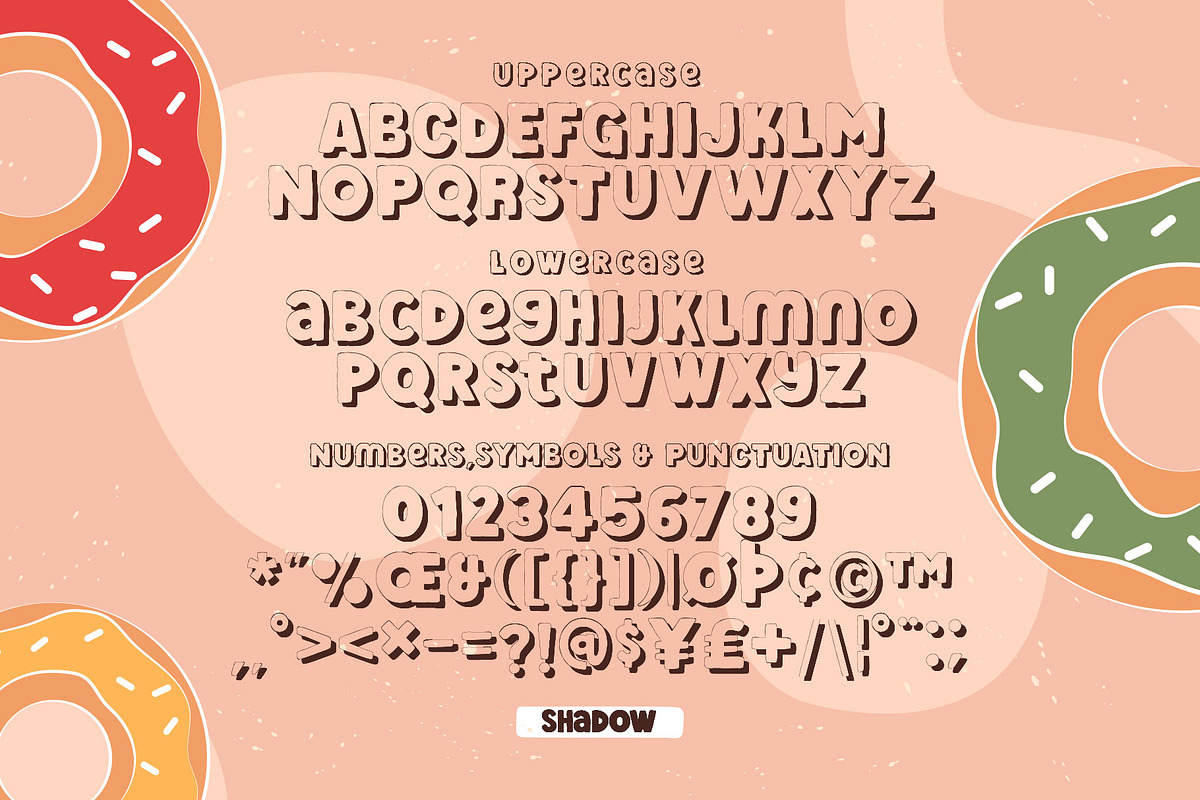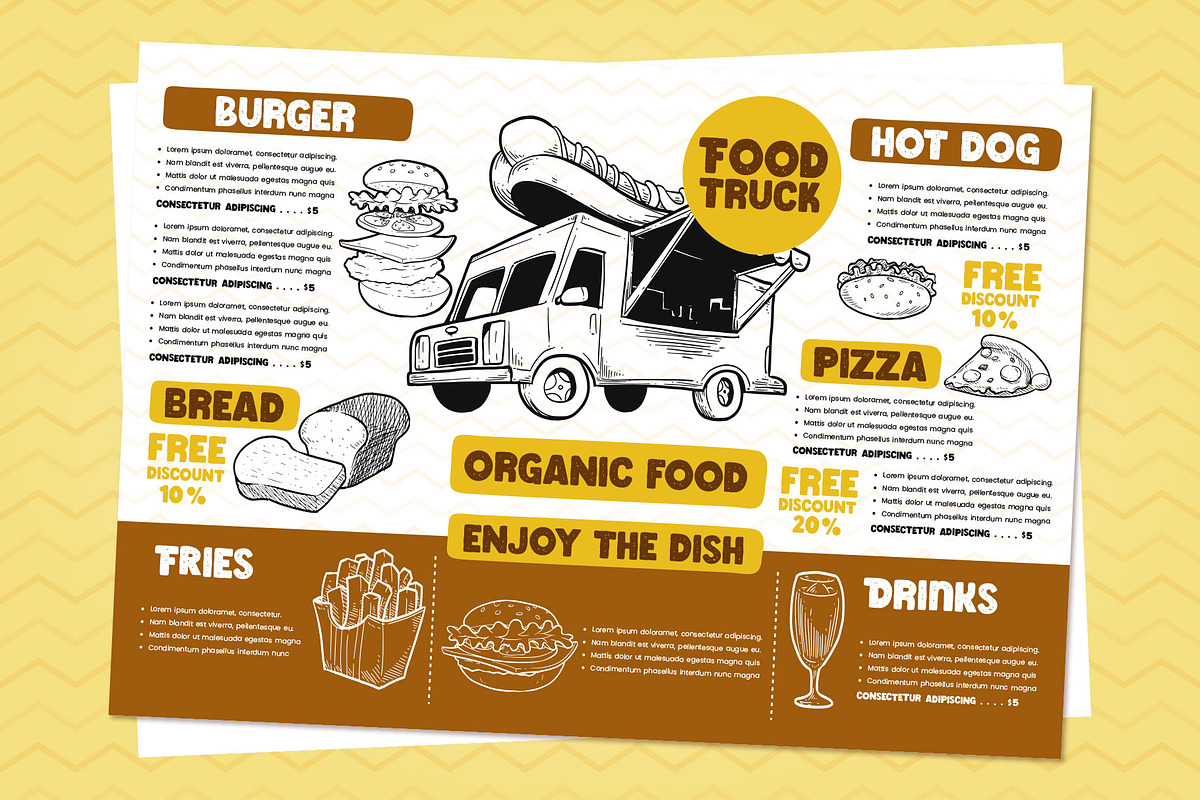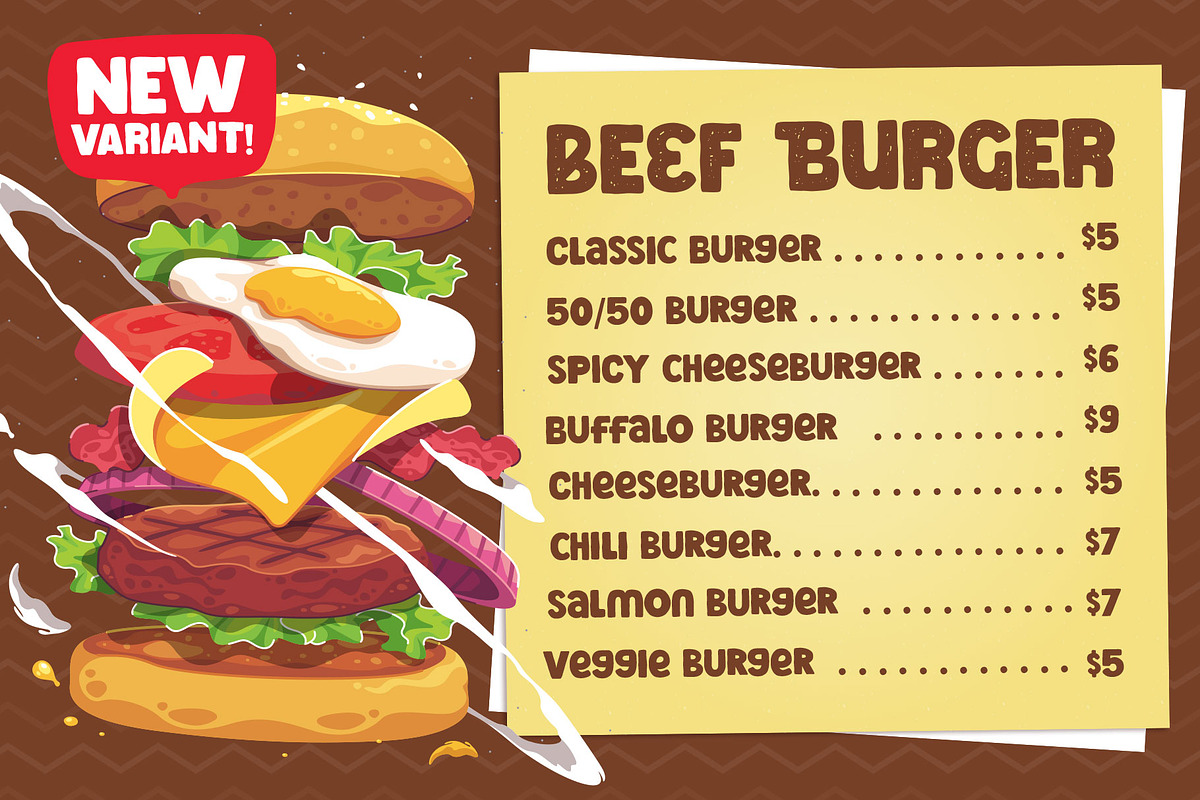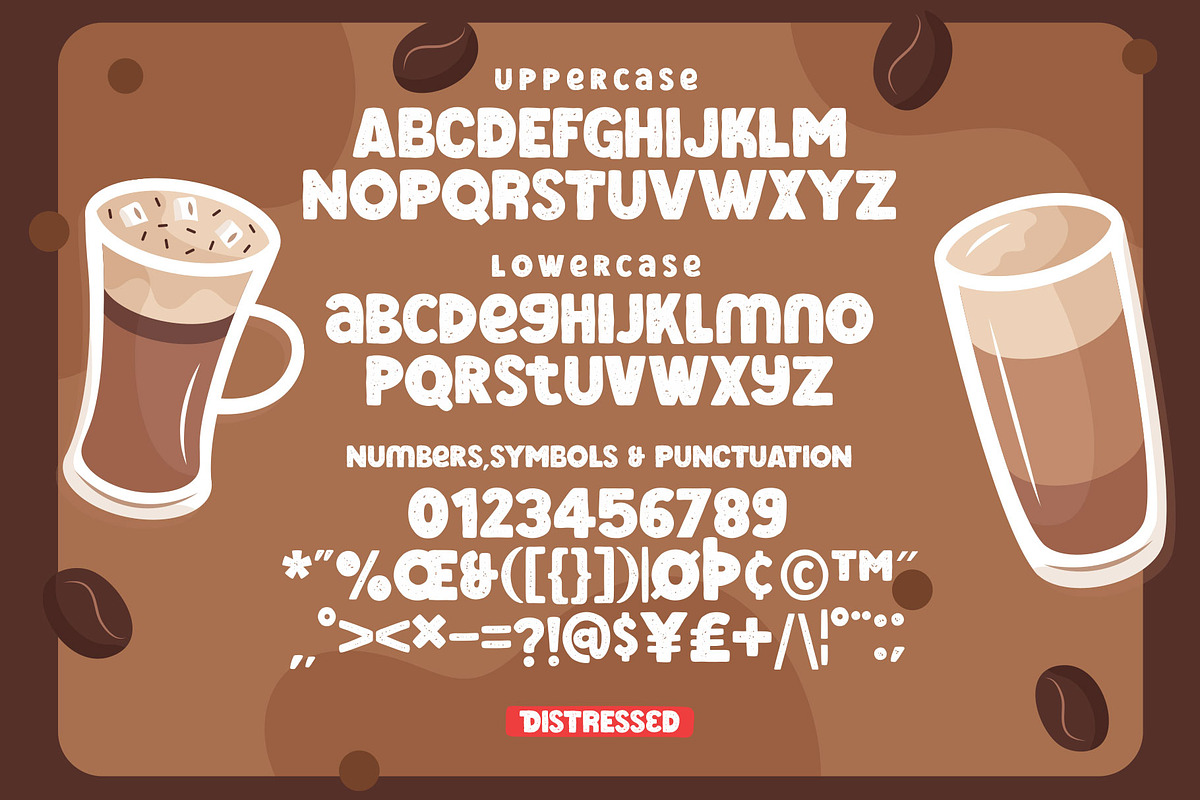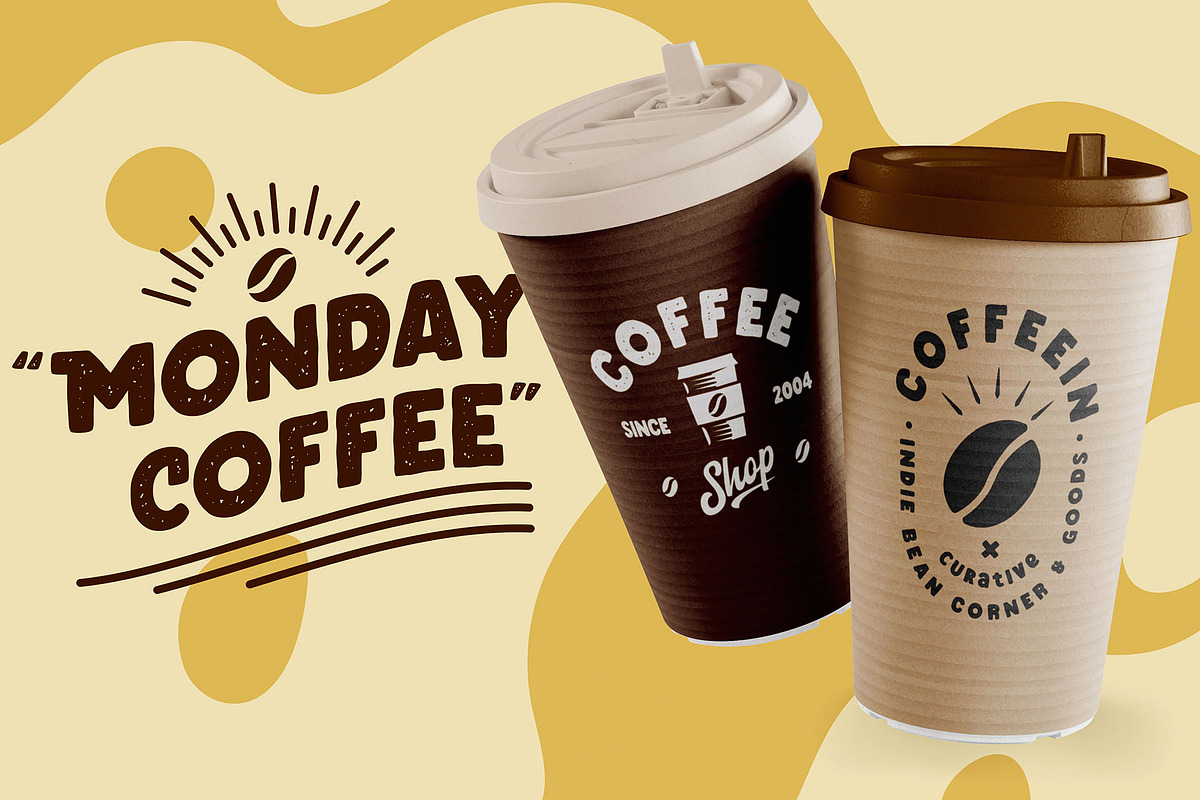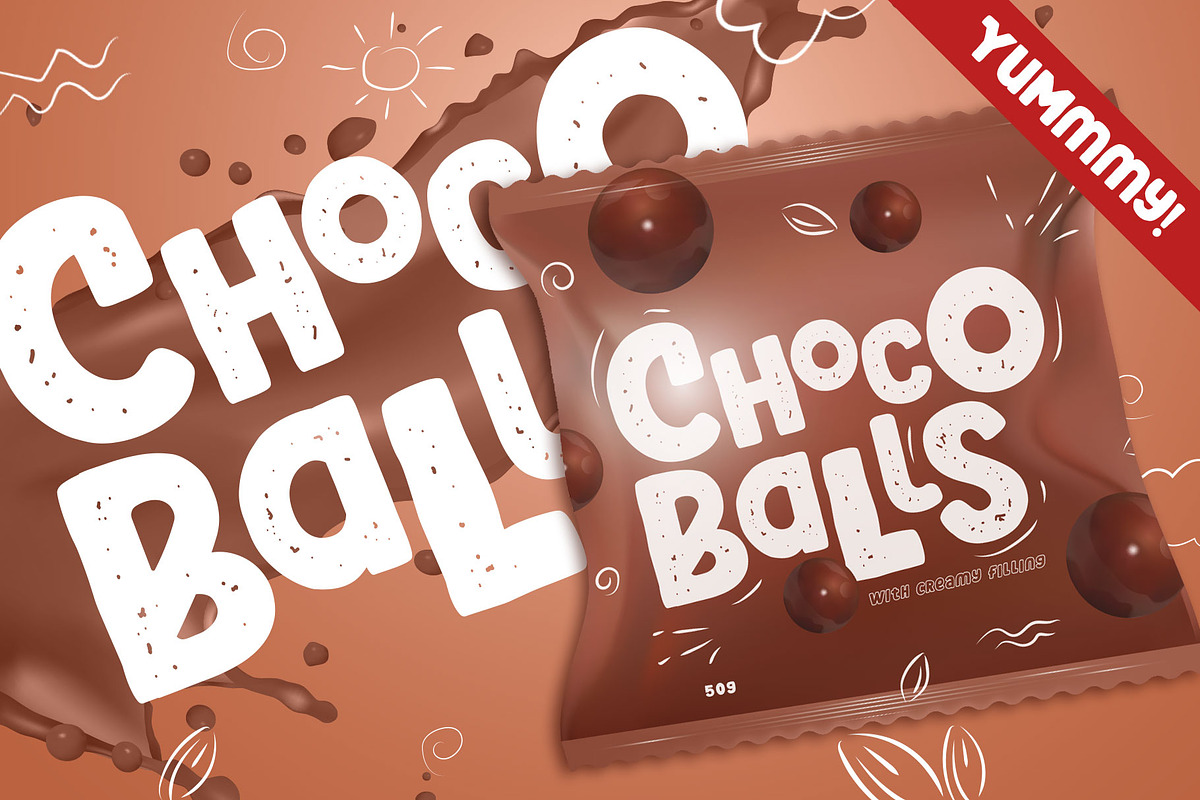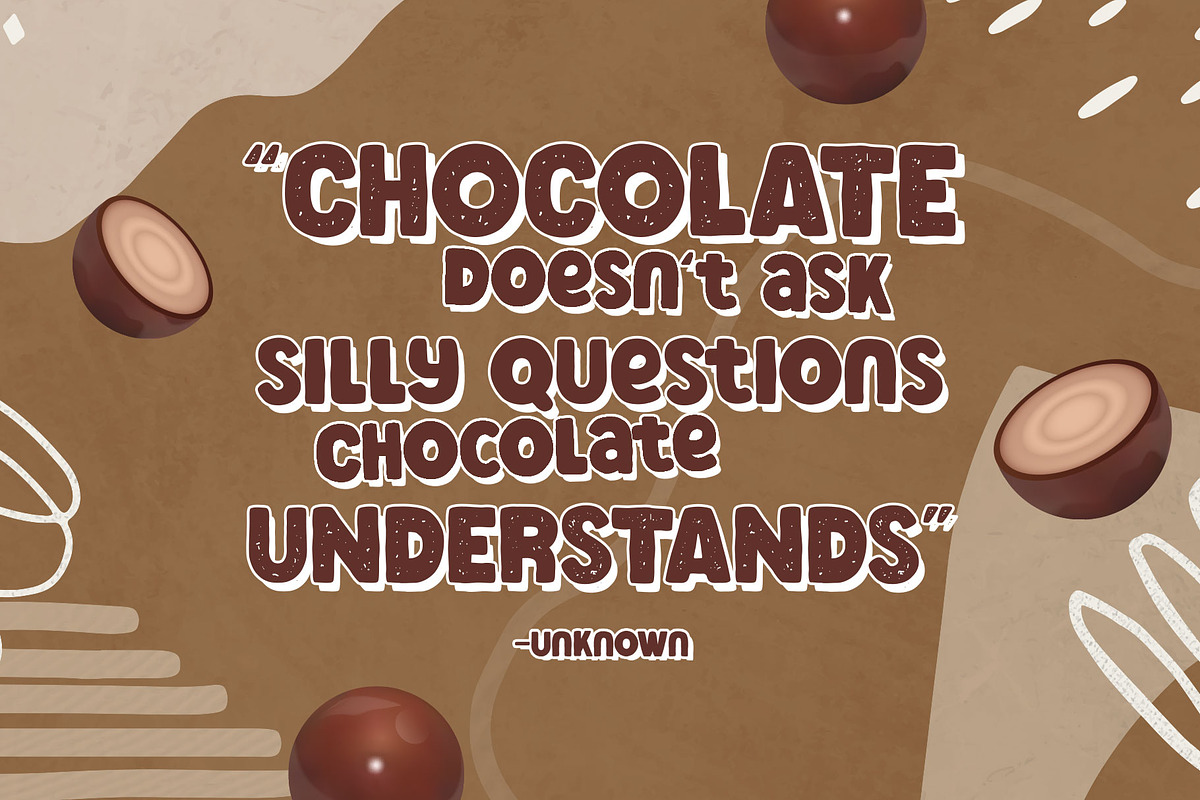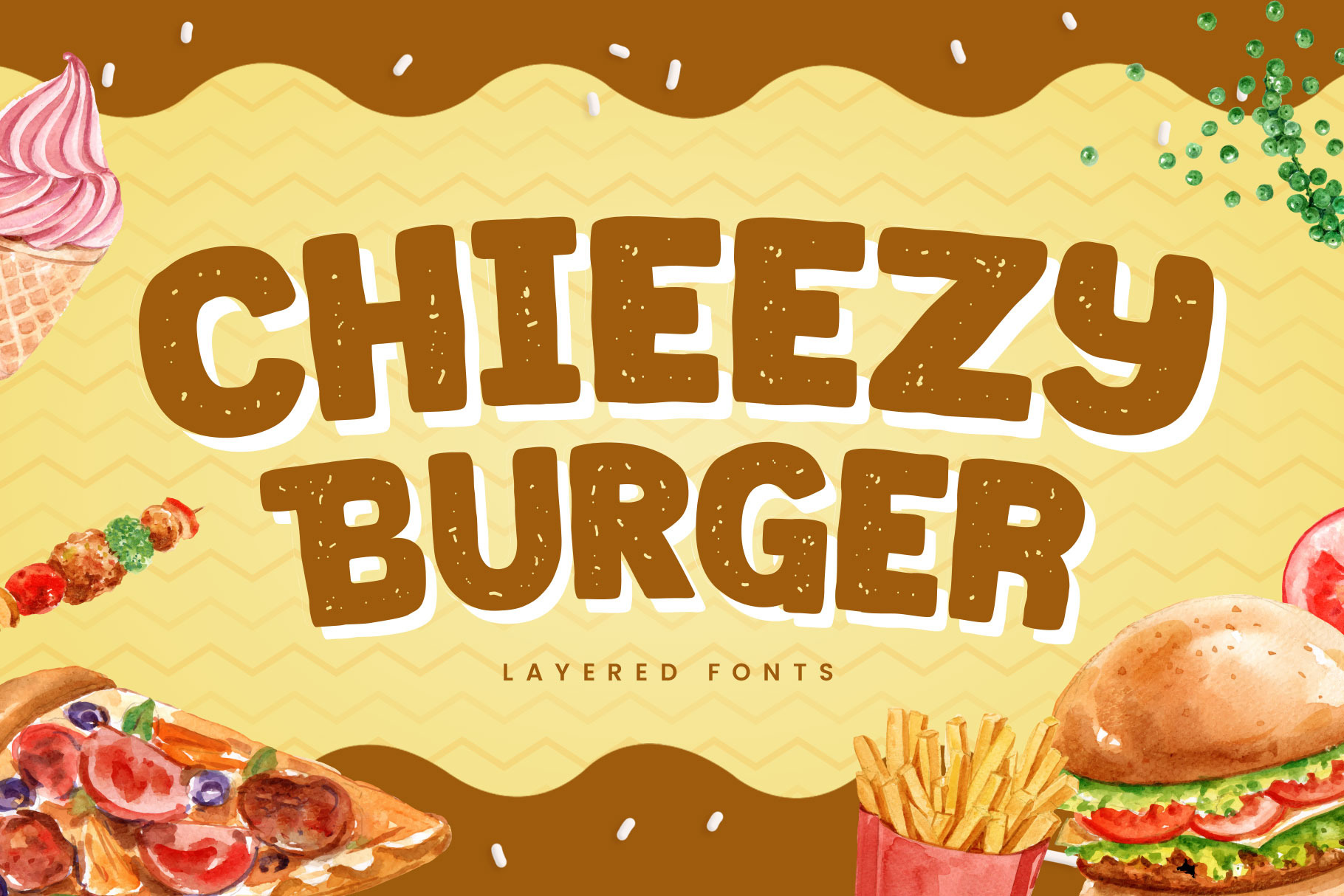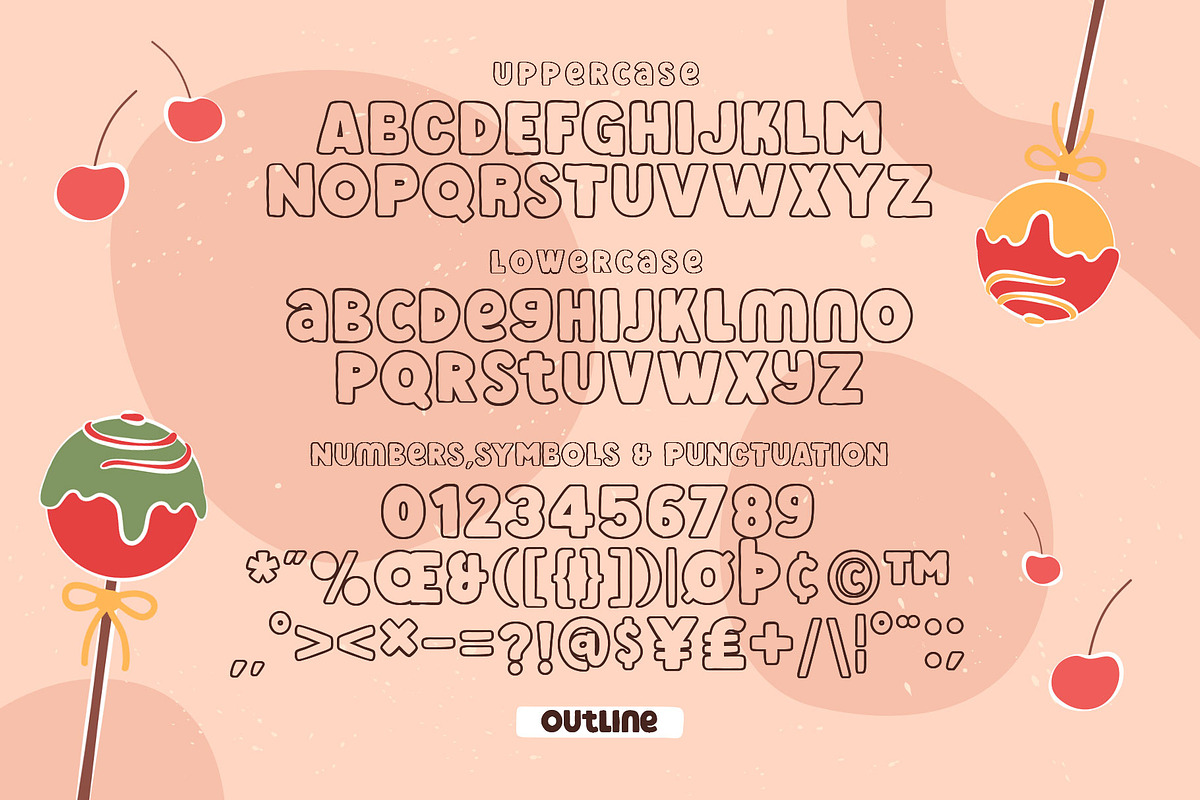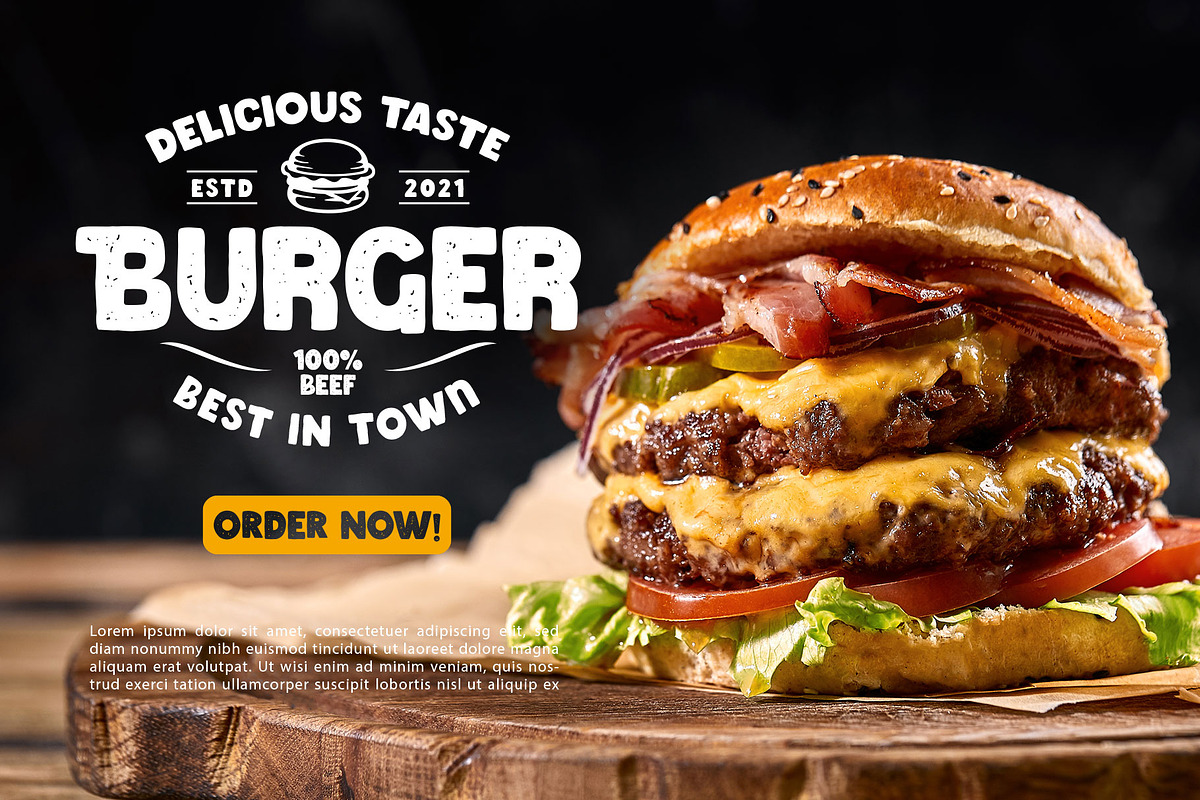
Chieezy Burger - Layered Font
Say hello to Chieezy Burger! Yes, this font is tasty, created especially for food branding and food advertising. Inspired by visualization of tasty burgers, crunchy chips, and cheerful emotion of the people who enjoy foods, drawn become the playful alphabet, with natural strokes.
Chieezy Burger is available in 4 styles: Regular, Distressed, Outline, and Shadow. You can make a playful typographic design without losing a delicious impression from the whole design. You can use the font individually or combine them as well.